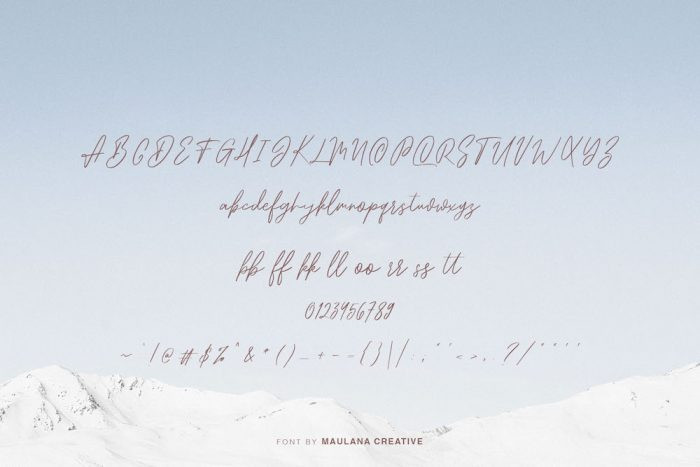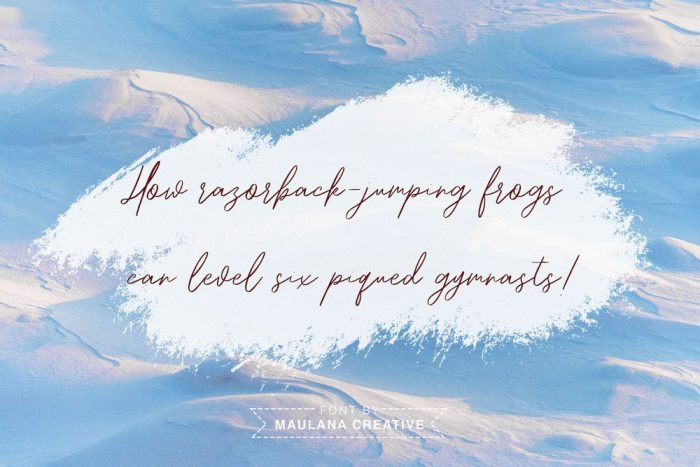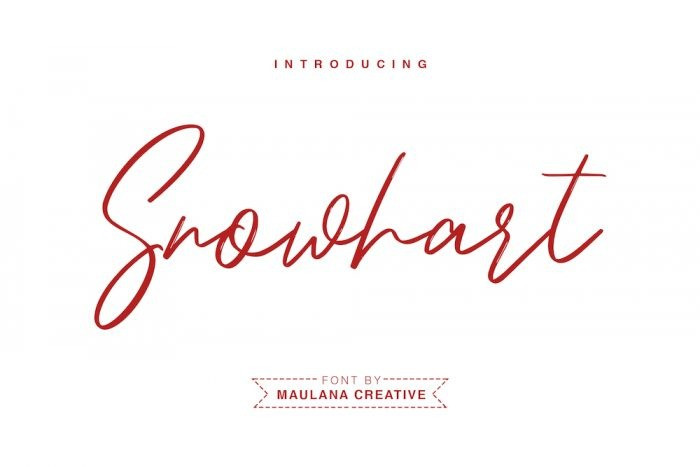
Snowhart Handwritten Font
** Snowhart Font ** is perfect for branding projects, logo, wedding designs, social media posts, advertisements, product packaging, product designs, label, photography, watermark, invitation, stationery and any projects that need handwriting taste.
** Snowhart** consisting of a fashionable sophisticated signature styles script with its own unique curves and an elegant inky flow.